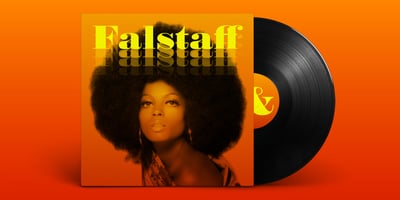
Falstaff MT
Falstaff MT font
Falstaff MT Font Family was designed by Steve Matteson, Monotype Design Studio and published by Monotype. Falstaff MT contains 2 styles and family package options. Falstaff first appeared with Monotype in 1931, an alphabet in the style of a wide, bold antiqua that was especially popular in the first third of the 19th century. Such typefaces distinguished themselves through their consistent basis in the transitional antiqua style. They are characterized by their extremely fine unflexed serifs with no curve connecting them to the thick strokes. The numerals with their generous curves and ball-like stroke endings and beginnings are particularly decorative. The vertical strokes are dominant and give lines of this typeface a column-like and therefore static look. Falstaff is today often used for book titling, especially for mystery novels. It is best used sparingly in middle and larger point sizes.